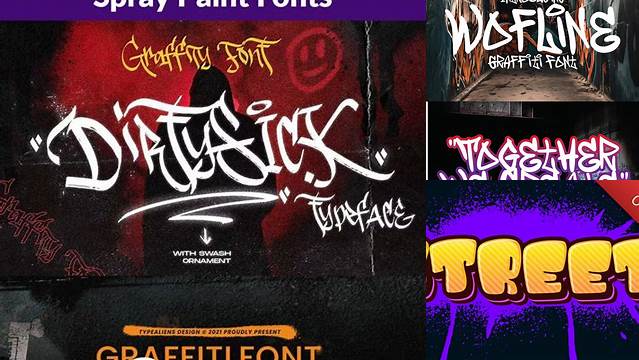
Are you ready to level up your graffiti game and create some seriously eye-catching art? Well, you've come to the right place, my friends! Today, we're diving headfirst into the awesome world of graffiti fonts generators, and trust me, they're absolute game-changers. If you're a seasoned street artist, a budding designer, or just someone who loves the raw energy of graffiti, this guide is your ultimate resource. We'll explore what these generators are, why they're so darn useful, and how you can use them to transform your ideas into stunning visual masterpieces. Let's get started, shall we?
What Exactly is a Graffiti Fonts Generator?
Alright, let's break it down. A graffiti fonts generator is essentially a digital tool, either a software program or an online platform, that lets you create custom graffiti-style text. Think of it as your personal font factory, specifically designed to churn out those iconic, edgy, and expressive letterforms that define the graffiti aesthetic. These generators take your input text and then, poof, they transform it into a range of styles that mimic the look of hand-drawn graffiti. You can play around with different fonts, experiment with colors, add cool effects, and even tweak the design to your liking. The best part? You don't need to be a master artist to get some impressive results. The generators handle the technical stuff, allowing you to focus on your creativity and vision. Graffiti fonts generators offer a simple, fast and effective way to generate graffiti-style text, allowing users to customize and experiment with different fonts and effects to their liking, regardless of their artistic skills.
These generators work by utilizing a combination of pre-designed font styles and algorithmic manipulation. They typically offer a selection of graffiti-inspired fonts, which are essentially digital representations of hand-drawn lettering styles. These fonts might include bubble letters, wildstyle tags, block letters, and other variations commonly seen in graffiti art. When you enter your text, the generator applies the chosen font to your words. Some generators also incorporate additional features, such as the ability to adjust letter spacing, add outlines, shadows, or gradients, and even incorporate custom effects like drips or splatters. The process is designed to be intuitive, so you can easily experiment with different styles and create personalized graffiti designs. The key to a great graffiti fonts generator is that it provides flexibility in design to unleash your creativity! This tool provides a flexible environment, empowering users to customize designs to their liking, and making it accessible to both seasoned artists and beginners alike.
Now, you might be wondering, why use a graffiti font generator? Well, there are several great reasons! Firstly, they're incredibly time-saving. Creating graffiti-style text by hand can be a painstaking process, especially if you're aiming for a high level of detail. These generators can produce polished results in a matter of seconds, allowing you to focus on the overall composition and design of your artwork. Secondly, they're fantastic for experimentation. You can easily try out different fonts, colors, and effects to find the perfect look without the commitment of physically painting or drawing. This opens up a world of creative possibilities and lets you refine your ideas quickly. Thirdly, they're a great way to learn about graffiti styles. By exploring the various font options, you'll gain a deeper appreciation for the different techniques and aesthetics within the graffiti world. And finally, they're just plain fun! There's something incredibly satisfying about seeing your words transformed into bold, expressive art. So, whether you're creating designs for a personal project, a marketing campaign, or just for kicks, a graffiti font generator is an invaluable tool that can unlock your creative potential and make your artistic vision a reality.
Key Features to Look for in a Top-Notch Generator
Okay, so you're sold on the idea of using a graffiti fonts generator. Awesome! But with so many options out there, how do you choose the best one for you? Don't worry, I've got you covered. Here are some key features to keep in mind when selecting a generator:
- Variety of Fonts: The more font options, the better! Look for a generator that offers a diverse range of styles, including bubble letters, block letters, wildstyle, and anything else that tickles your fancy. The key is to have plenty of choices so you can find the perfect look for your project.
- Customization Options: Can you adjust the font size, spacing, and colors? Does it offer options for outlines, shadows, and other effects? The more customization, the better. A good generator will give you the flexibility to fine-tune the design to your exact specifications.
- Ease of Use: Let's be real, nobody wants to spend hours wrestling with a complicated interface. Choose a generator that's user-friendly, with a clear and intuitive design. You should be able to quickly enter your text, select a font, and start experimenting.
- Output Quality: What file formats can you export? Can you get high-resolution images suitable for printing or digital use? Make sure the generator produces high-quality output that meets your needs.
- Additional Effects: Some generators offer extra bells and whistles like textures, backgrounds, and the ability to add custom elements. While not essential, these features can add another layer of creativity to your designs.
- Mobile Compatibility: In today's digital world, it's great to be able to create on the go! Does the generator work well on mobile devices, such as smartphones and tablets? This will give you flexibility and allow you to create whenever and wherever inspiration strikes.
- Community and Support: Does the generator have a supportive community where you can share your work and seek feedback? Is there helpful documentation or tutorials to guide you through the process? A strong community can provide support and inspire creative ideas.
When you're looking for a generator, think about what you need and desire from this tool. What are your specific requirements and what kind of customization would you like to have? The best tool is the one that offers all the features you want while also being easy to use and generating the best results for you. It is important to find a graffiti font generator that not only provides great aesthetics but also meets your user-specific demands.
Top Graffiti Fonts Generators: A Quick Rundown
Alright, let's get down to the good stuff. Here are some top-rated graffiti fonts generators that you should definitely check out:
- Canva: Canva is a versatile design platform that offers a range of tools, including a fantastic text editor with several graffiti-style fonts. It's incredibly user-friendly, making it a great choice for beginners. You can easily customize text, add effects, and create stunning designs.
Conclusion: Unleash Your Inner Graffiti Artist!
There you have it, guys! Everything you need to know about graffiti fonts generators, from what they are to how to use them like a pro. These tools are a fantastic way to explore the dynamic world of graffiti art, whether you're a seasoned artist or just starting. With the right generator, you can create stunning designs that capture the energy and creativity of street art. So, what are you waiting for? Go out there, experiment with different fonts and styles, and unleash your inner graffiti artist! The tools are now available. Graffiti fonts generators offer the key to creating unique and visually appealing designs. So, let your creativity run wild and create designs you'll be proud of. Happy creating!